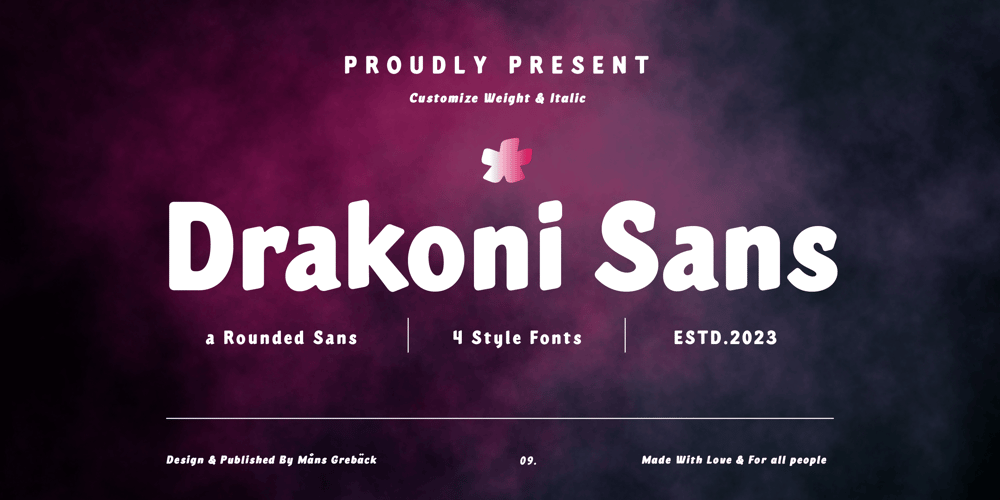
Drakoni Sans
Drakoni Sans font
Drakoni Sans Font Family was designed by Måns Grebäck and published by Mans Greback. Drakoni Sans contains 4 styles and family package options. Drakoni Sans is a bold and rounded font that exudes a strict and angular aesthetic. Its clean lines and subtle curves give it a humanist touch, making it perfect for a wide range of designs.Designed with a vision of comic book headlines, Drakoni Sans is both playful and professional. Its bold and powerful presence commands attention, while its rounded edges and angled cuts add a touch of personality and charm.Available in four styles – Regular, Italic, Bold, and Bold Italic – Drakoni Sans offers versatility and flexibility for any project. Its clean and clear letterforms make it ideal for logos, headlines, and other display purposes.Whether you’re looking to add a touch of softness to your designs or to create a bold and commanding presence, Drakoni Sans is the font for you.The font is built with advanced OpenType functionality and has a guaranteed top-notch quality, containing stylistic and contextual alternates, ligatures and more features; all to give you full control and customizability. It has extensive lingual support, covering all Latin-based languages, from Northern Europe to South Africa, from America to South-East Asia. It contains all characters and symbols you’ll ever need, including all punctuation and numbers.